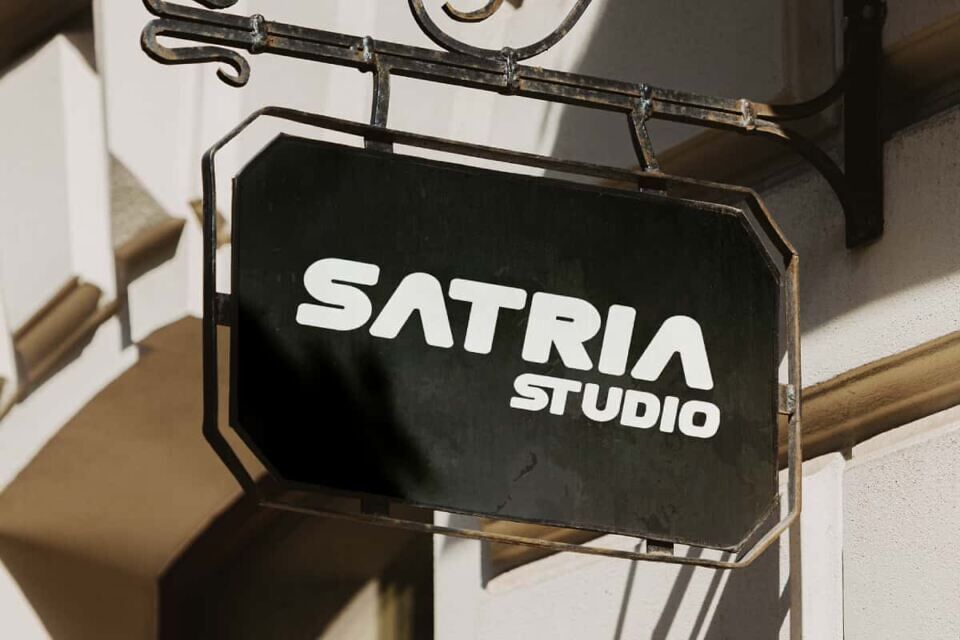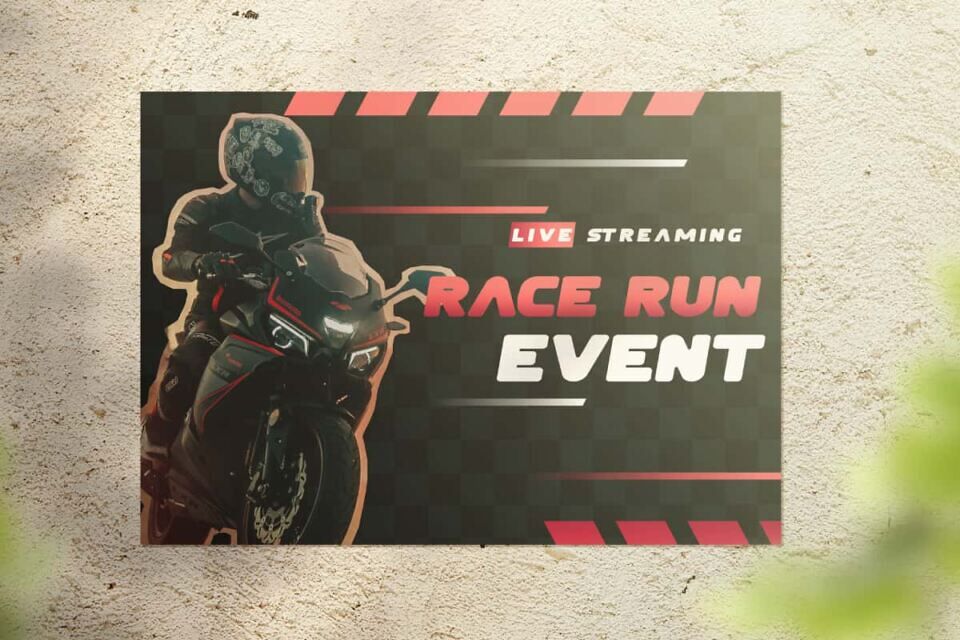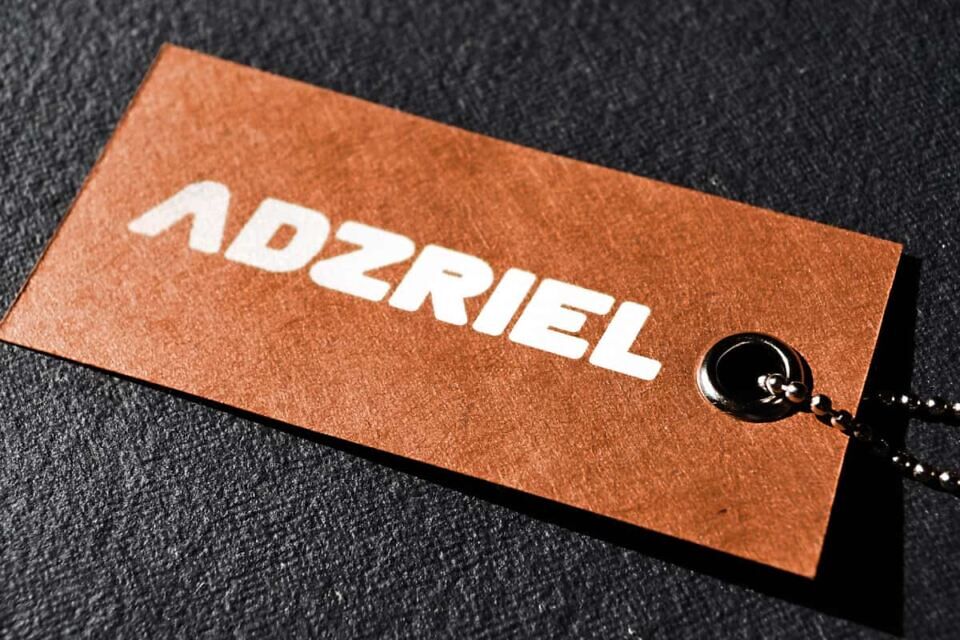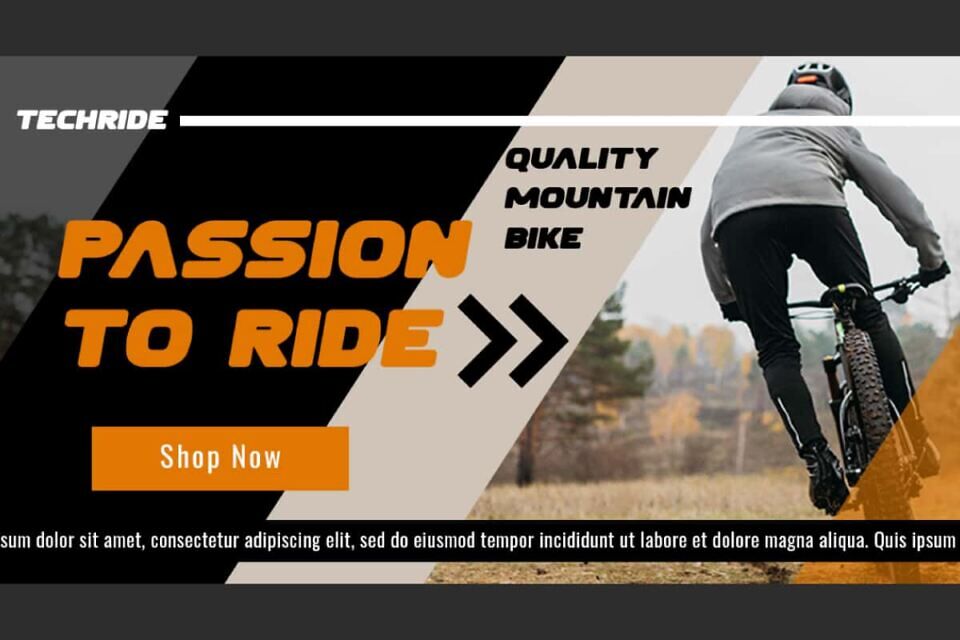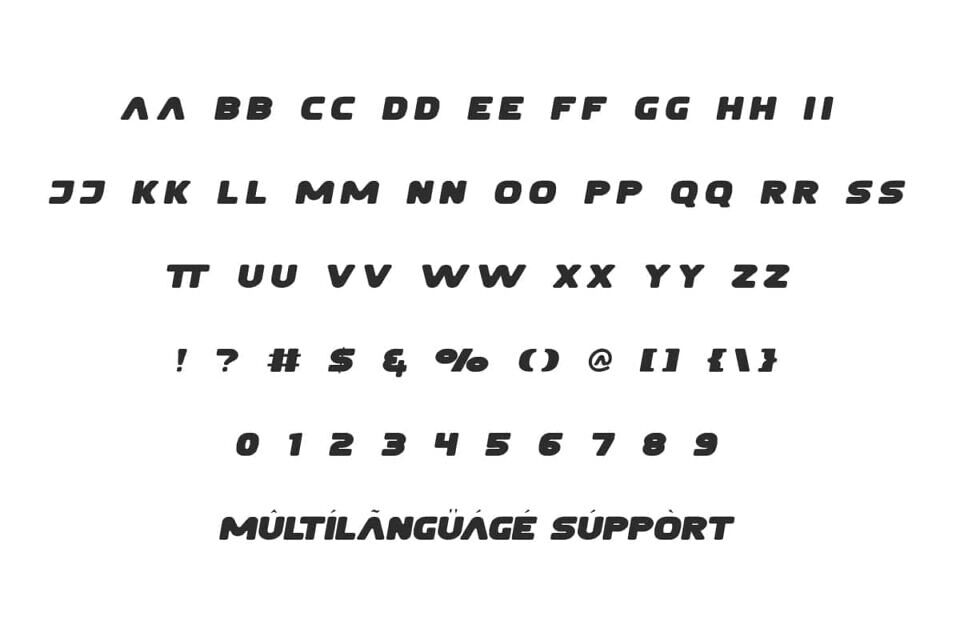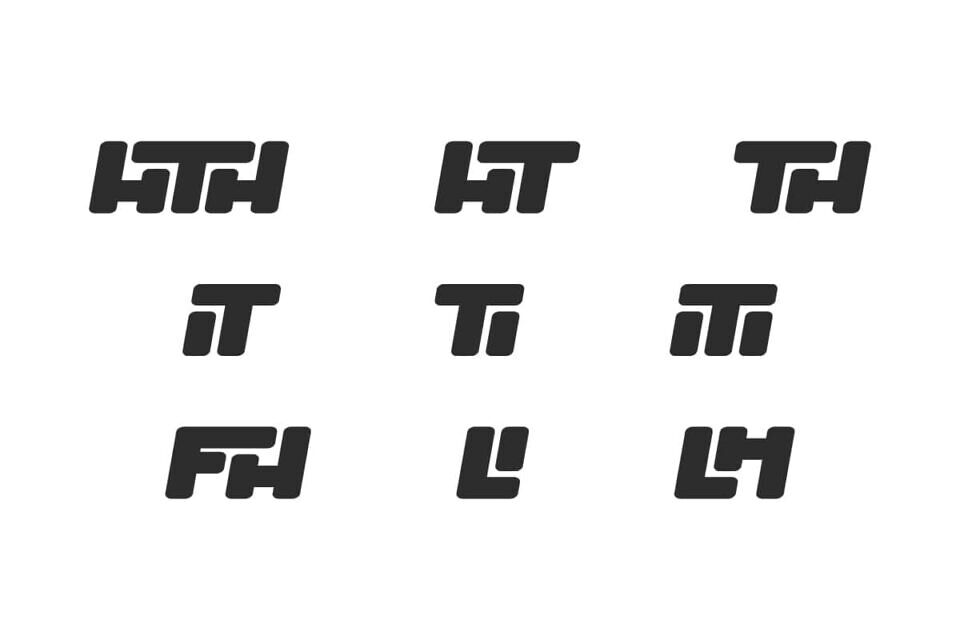
Nasionaliz Font
Nasionaliz Font is a fun and attractive strong bold typeface, suitable for all unique and semi-futuristic design works!
This font can be used for anything such as banners, blogs, brochure, coves, flyer, headline, invitations, label tags, mockup, poster, printed materials, quotes, signage, skateboard, sticker, t-shirt designs, template, website, etc.